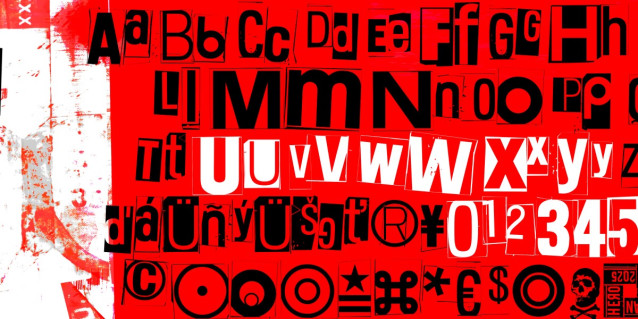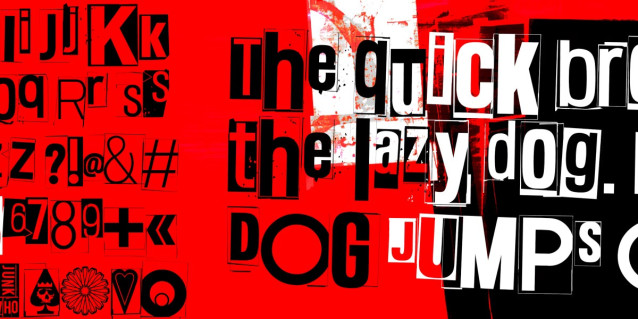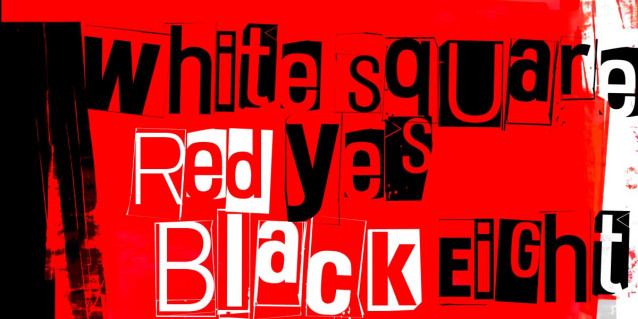
White Square Red Yes Black Eight Font
White Square Red Yes Black Eight Font: A bold, rebellious collage style reminiscent of classic punk magazines and ransom notes. Each letter is wrapped in a rough block outline, giving your type a rough, powerful, attention-grabbing look. The handcrafted, uneven look makes this display font ideal for projects that emphasize chaos and individuality.
Perfect for band posters, protest graphics, bold apparel designs, underground event flyers, or any design that needs a strong, distinctive feel.